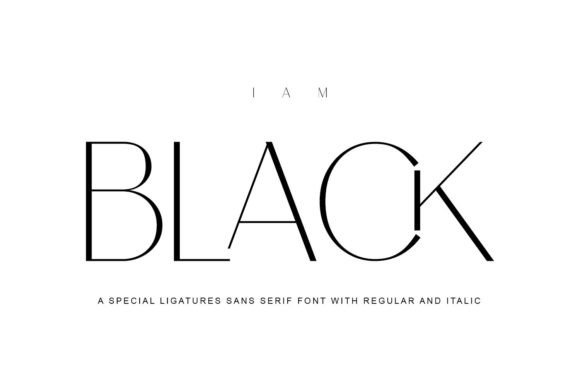
Looking for the perfect font for your next project? Look no further than I Am Black Font! Created by rmdndsign, this sophisticated and charming sans serif font is the Best Font for Small Text. With a fashionable touch and elegant design, I Am Black is perfectly suited for luxury, feminine projects.
Not only is this font stylish, but it is also highly functional. Its PUA encoding ensures that you can access all the glyphs and ligatures with ease, making it a breeze to use in any project. Whether you're designing a website, creating branding materials, or crafting an advertisement, I Am Black Font is the perfect choice.
But don't just take our word for it! Users of I Am Black have raved about its versatility and ease of use. They love the way it elevates their projects and adds a touch of sophistication and class.